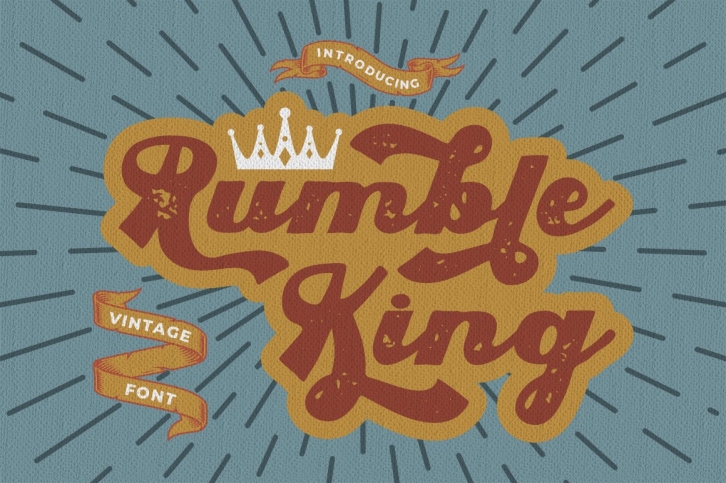
Rumble King is a great font that was designed by PutraCetol Studio. Imagine the amount of combinations you can create using this font! The archive is 11.50 MB and it was released on October 20, 2022. Rumble King looks beautiful on wedding invitations, greeting cards, logos, posters, labels, t-shirt designs, logos, business cards and is perfect for use in ink or watercolor works, fashion, magazines, packaging and food menus, children's books and more!